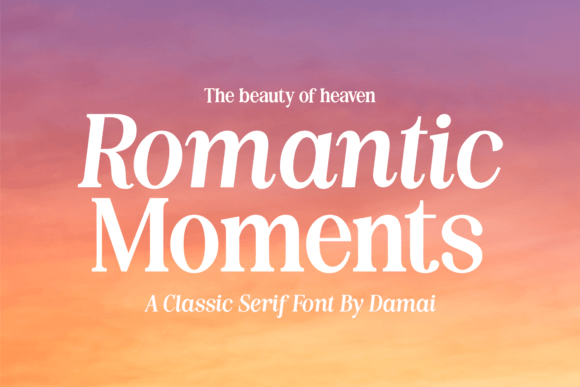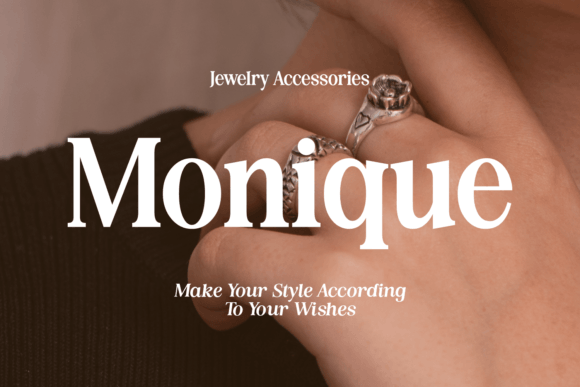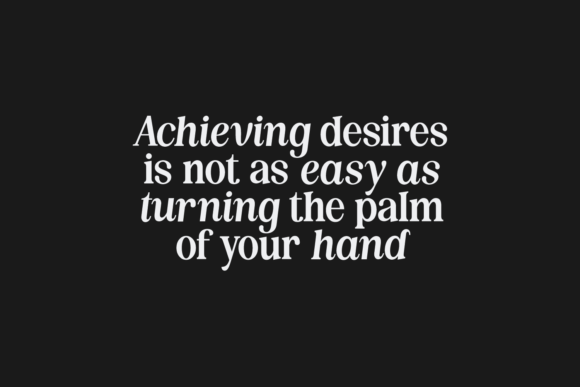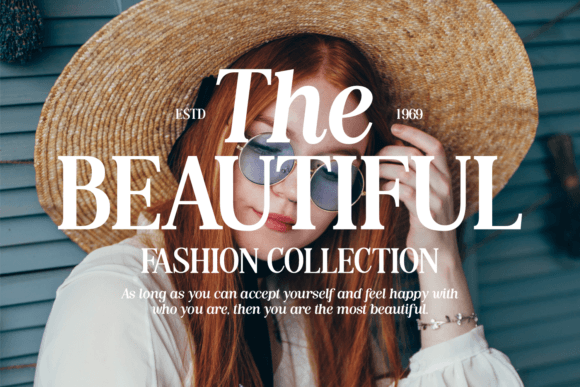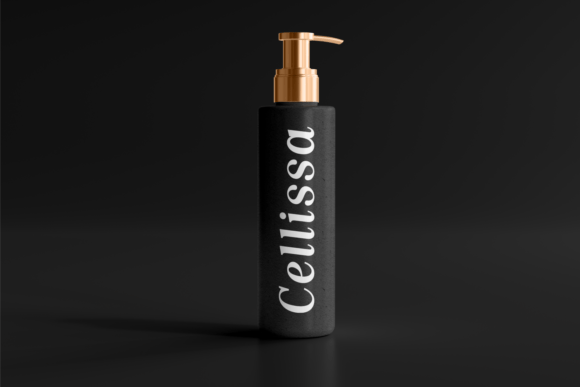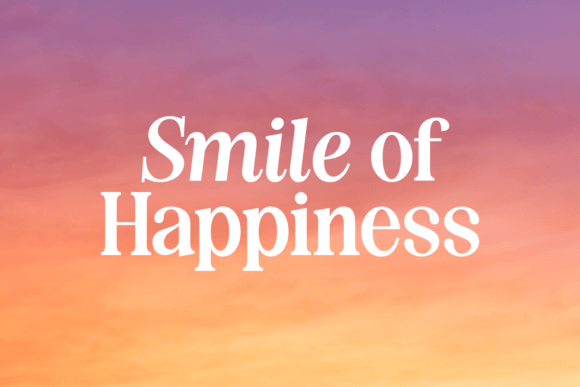
Find Serenity in Every Line: Introducing the Calming Paradise Font
Have you ever found yourself stuck in a creative rut, staring at a blank page or screen, desperate for inspiration to strike? We’ve all been there – the pressure to create something beautiful and meaningful can be overwhelming. But what if I told you that the perfect solution lies in the delicate curves and elegant lines of the Calming Paradise Font?
This stunning serif font was designed to transport you to a world of serenity and tranquility, where every project becomes a masterpiece. With its balanced and varied design, the Calming Paradise Font is the perfect addition to any designer’s toolkit. Whether you’re working on a branding project, a book cover, or a website, this font will elevate your work and leave a lasting impression on your audience.
- Font Family: Calming Paradise
- Unique Characteristics:
- Hand-drawn, elegant design
- Features intricate details and subtle texture
- Perfect for creating a peaceful and serene atmosphere
Calming Paradise Font Review
As a designer, I was excited to try out the Calming Paradise Font. I have to say, it’s a nice addition to my font collection. ✨ The font’s gentle curves and soft lines immediately evoke a sense of calmness, making it perfect for any project that requires a soothing atmosphere. ✨ The font is also highly legible, even at smaller sizes, which is a must-have for any good font.
Here are some of the things that I particularly like about Calming Paradise Font:
- ✨ Highly customizable: The font comes with a wide range of styles and weights, allowing me to tailor it to my specific design needs.
- ✨ Excellent legibility: As I mentioned earlier, the font is highly legible, making it perfect for body text, headings, and even titles.
- ✨ Versatile: The font can be used for a wide range of projects, from digital designs to print materials.
However, there are a few limitations that I’d like to point out:
- ⚠️ Limited support for languages with non-Latin scripts: The font does not support languages such as Chinese, Japanese, or Korean, which may be a limitation for some designers.
- ⚠️ Not suitable for high-contrast designs: The font’s soft lines and curves may not be suitable for designs with high contrast, such as dark backgrounds or bright highlights.
Overall, I’m impressed with the Calming Paradise Font. It’s a beautiful, calming font that’s perfect for any project that requires a soothing atmosphere. While it may have some limitations, it’s still a valuable addition to any designer’s font collection.
For the most effective use of the Calming Paradise Font, consider the following tips:
- Use the font in conjunction with calming colors and imagery to create a peaceful atmosphere.
- Combine the Calming Paradise Font with other fonts to create a unique and engaging visual identity.
The Calming Paradise Font is ideal for:
- Creating relaxing and calming branding materials.
- Designing wellness and
Alternatives to Calming Paradise Font
Great Vibes Font is a modern, elegant, and highly customizable font. It is suitable for use in branding, logos, and other design elements where a touch of sophistication is required. It has a more formal tone compared to Calming Paradise Font, which is more casual and natural.
Alex Brush Font is a handwritten, cursive font that is perfect for creating a personal and emotional connection with the audience. It is ideal for use in wedding invitations, greeting cards, and other design elements where a touch of warmth and personality is needed. Alex Brush Font has a more organic feel compared to Calming Paradise Font, which is more structured and symmetrical.